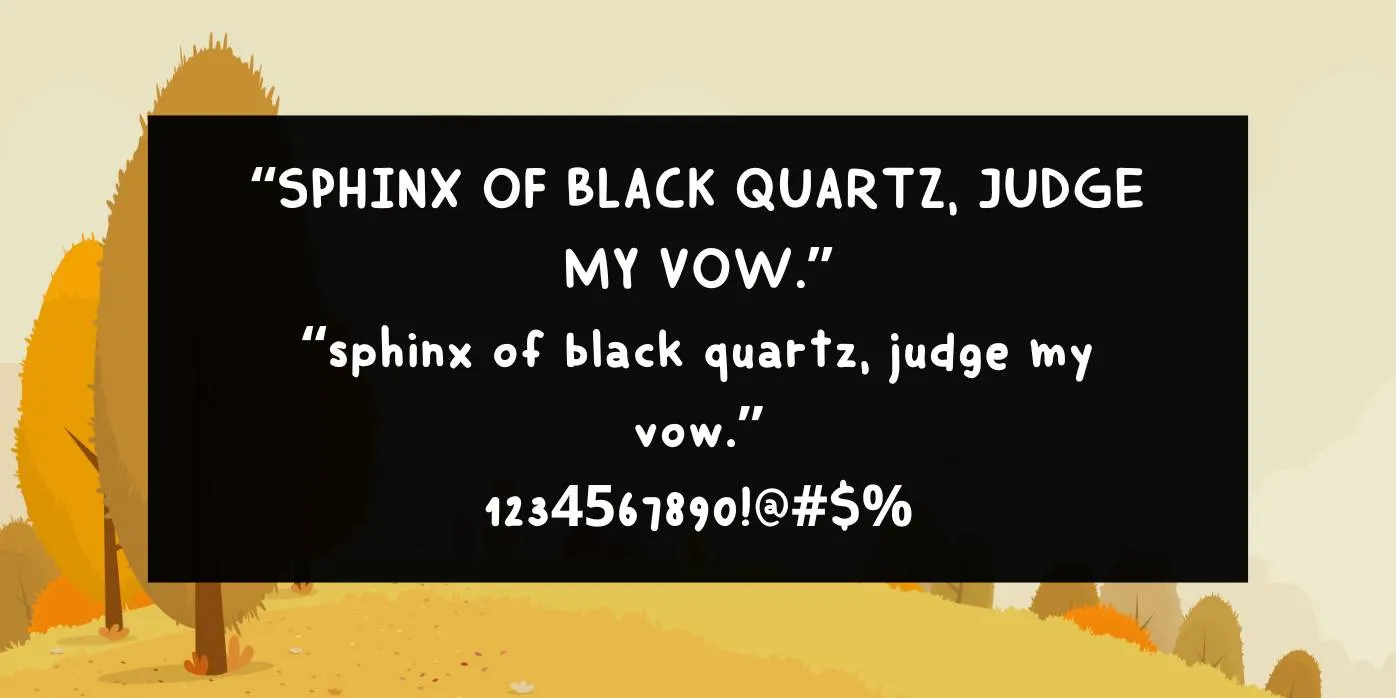
DK Smiling Cat Font
DK Smiling Cat Font is a comic type of texture. Hanoded is the designer of this texture. The characters of this texture are classic, simple, bold, and easily readable. The characters of this texture are amazing and stunning.
You have to put the text in some other font.  Then this texture will give you the text in this typeface. The text will be in different colors, sizes, shapes, and designs. The typeface that is best for pairing with this texture is the arial rounded mt bold font. This texture has stunning features to be paired with this texture.